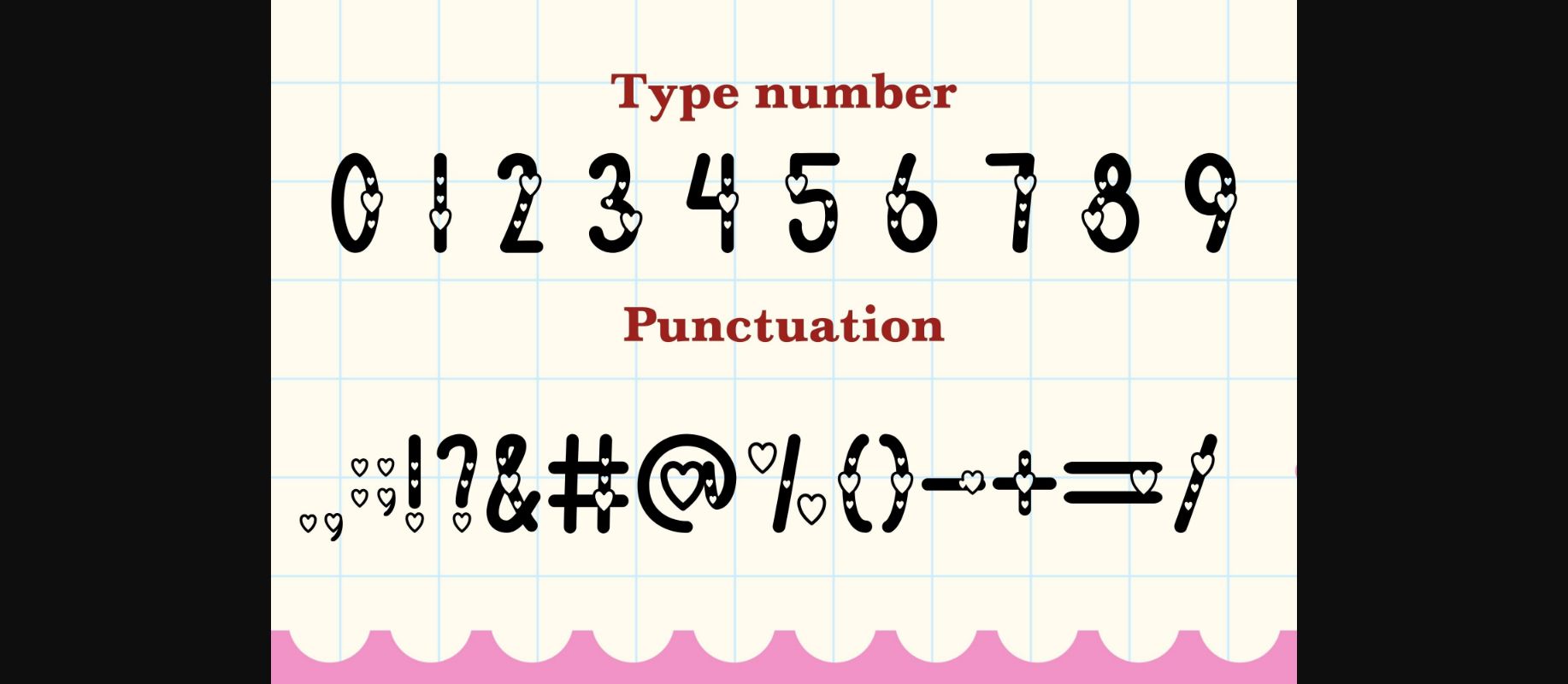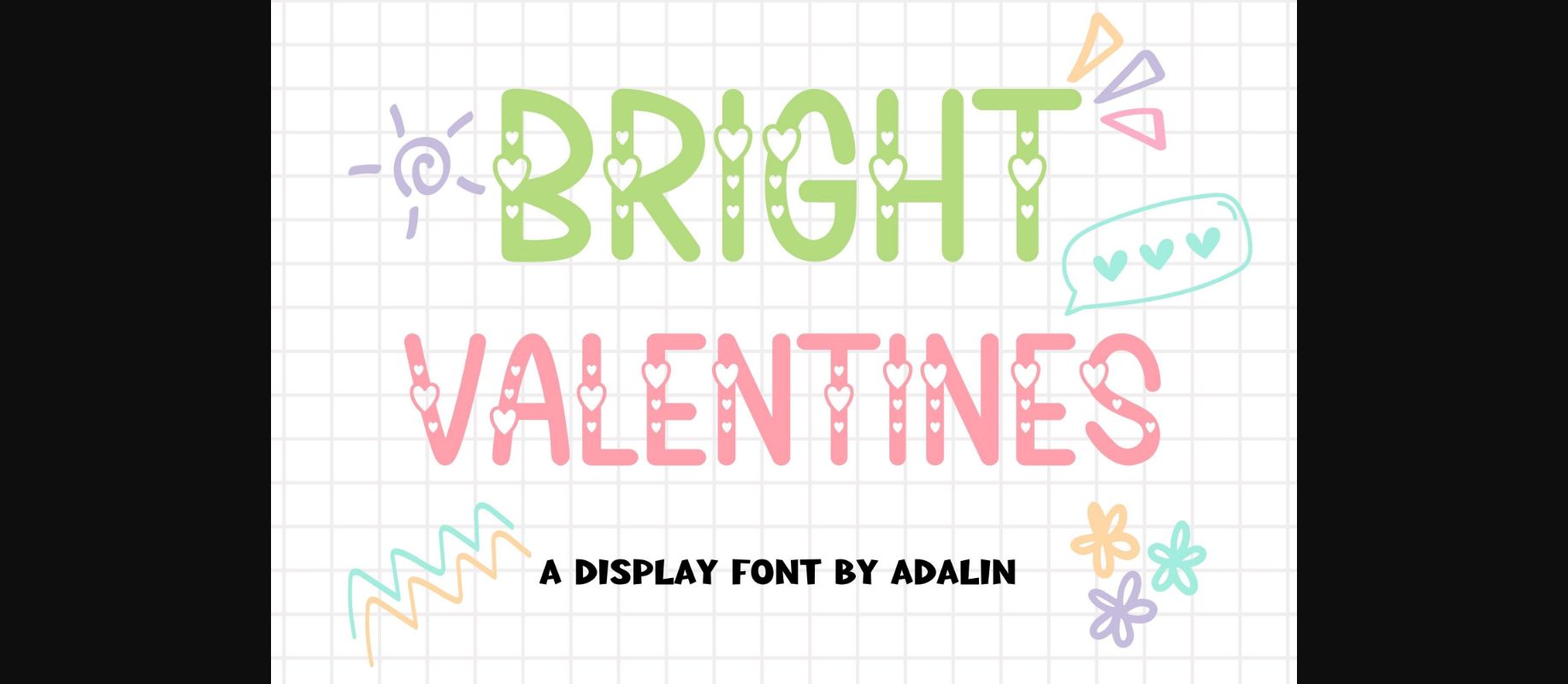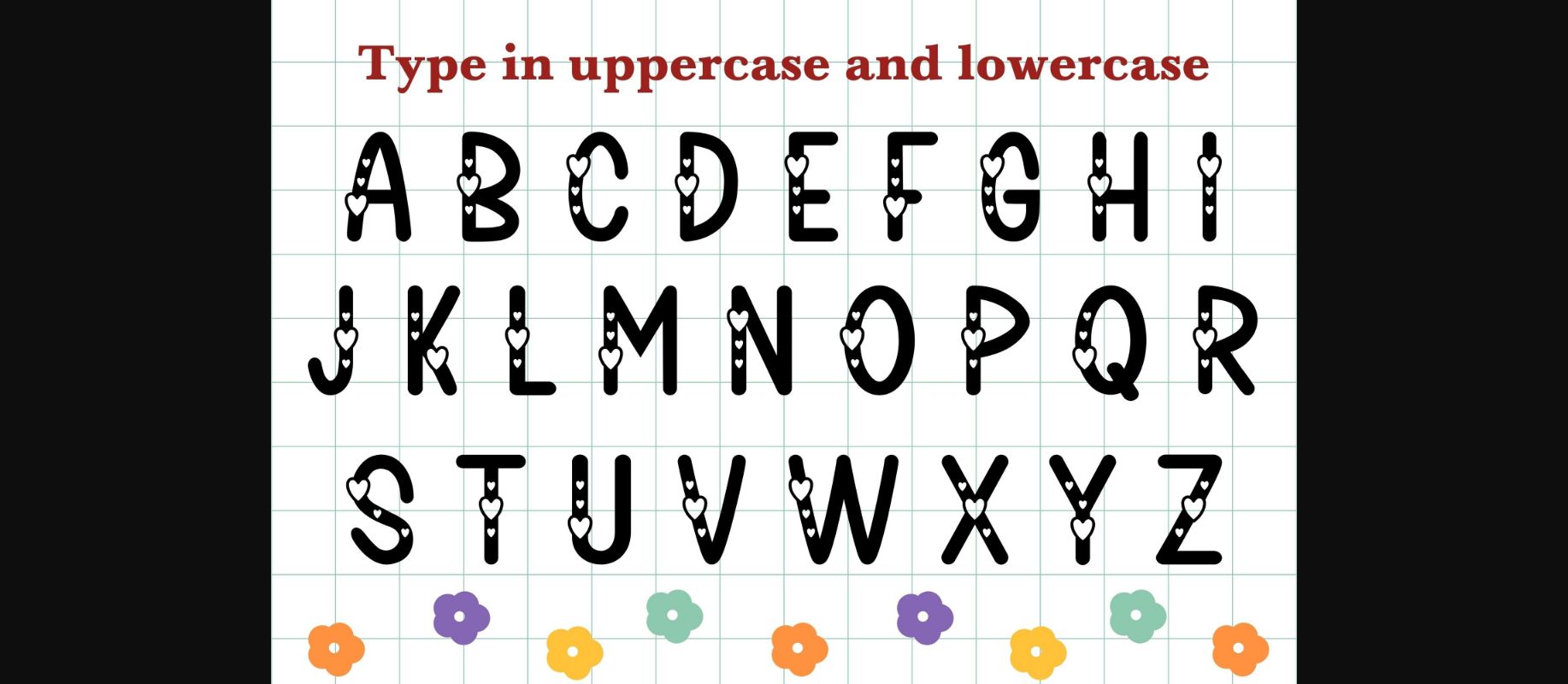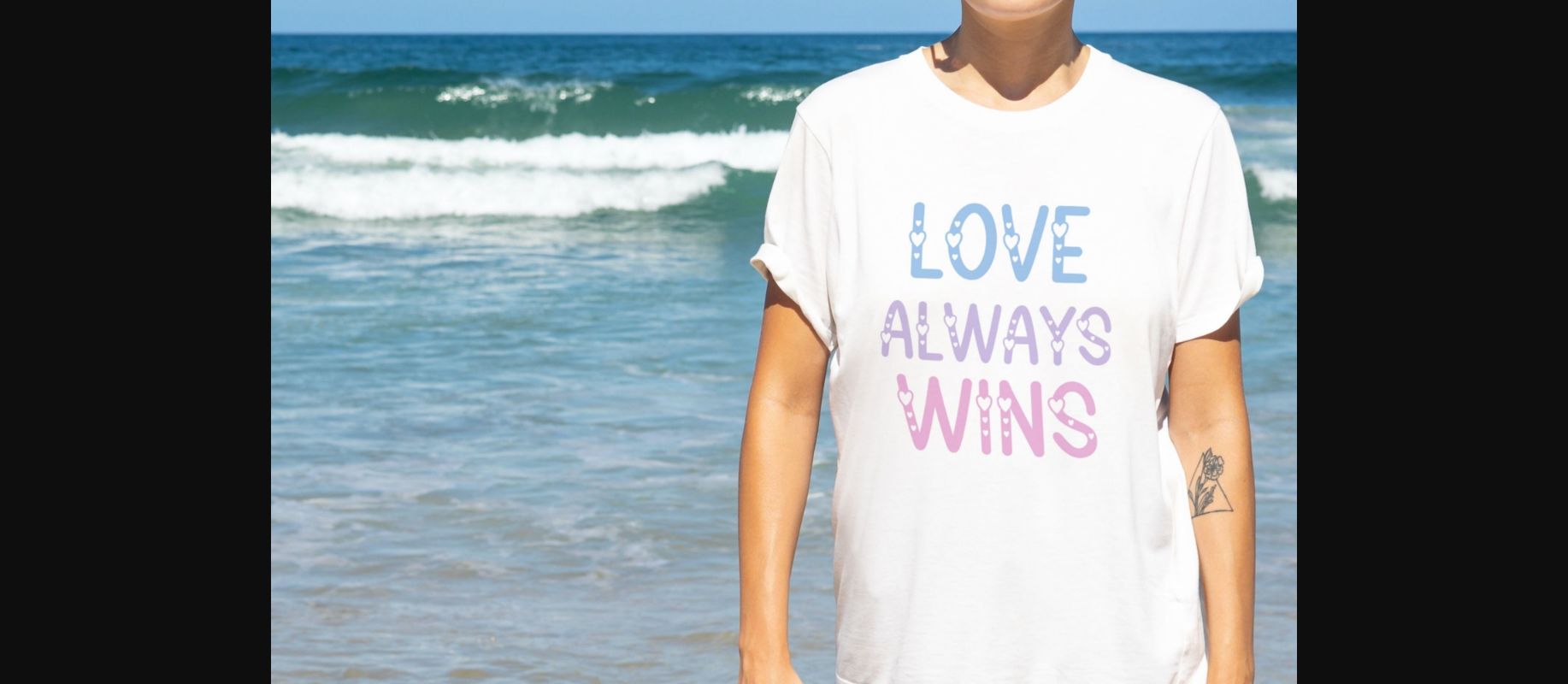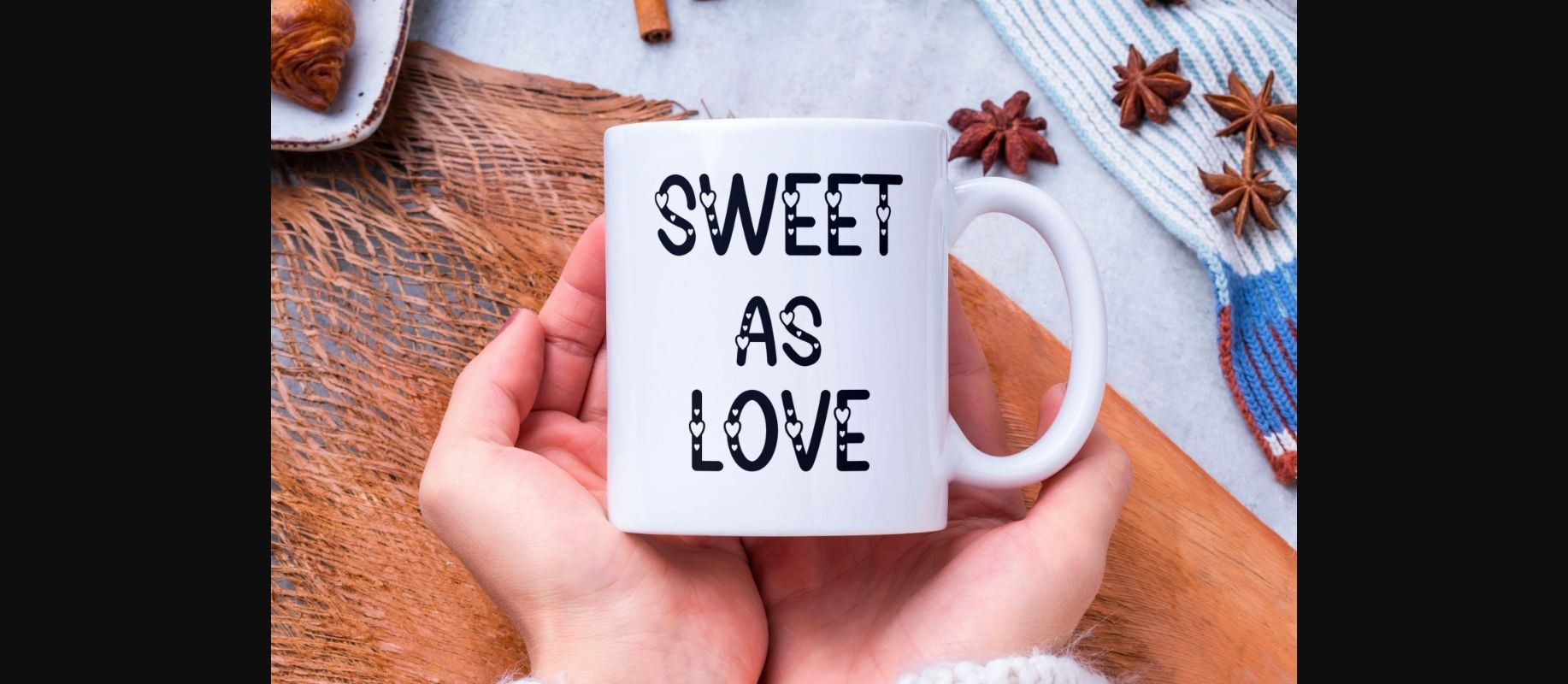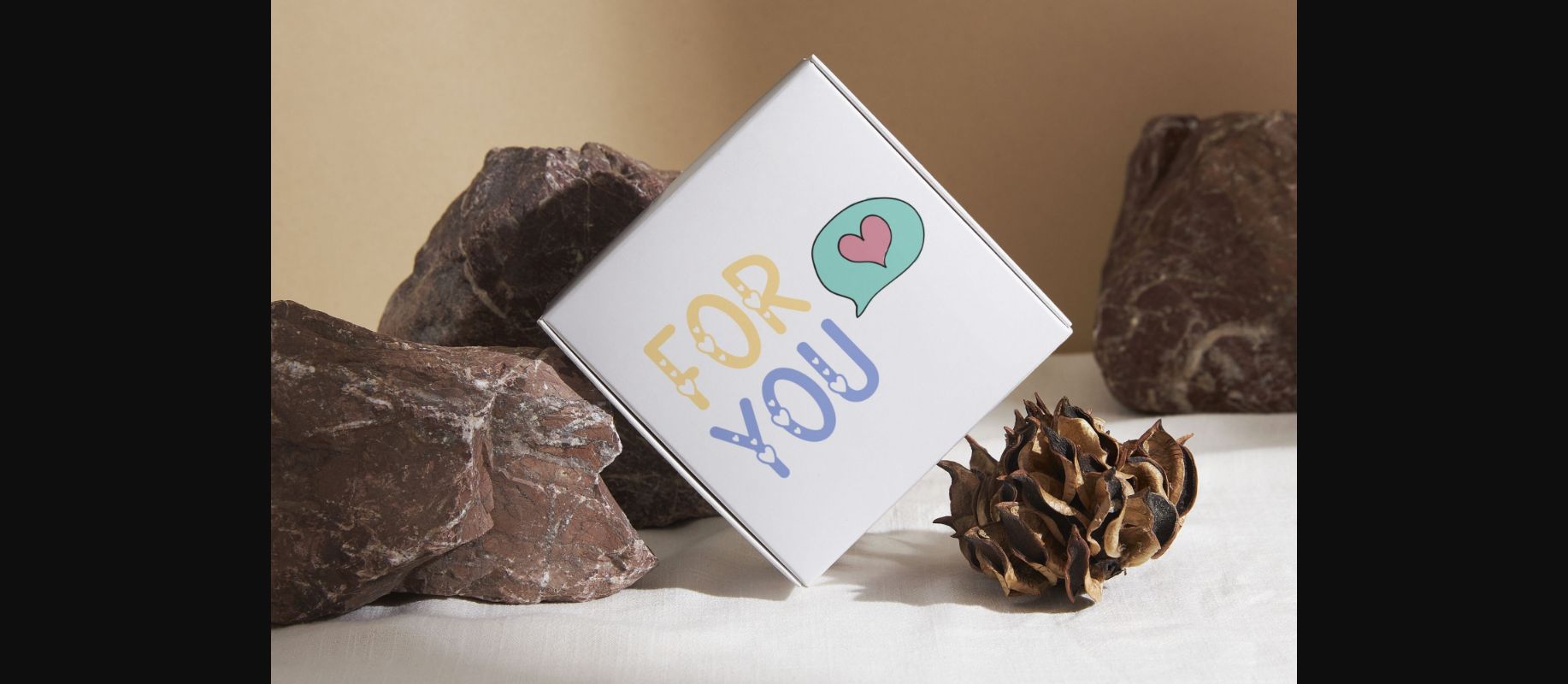
Bright Valentines Font
About Bright Valentines Font
Bright Valentines is a cute decorative Font ideal for crafting, and perfect for designs that need a playful, cheery accent. Bright Valentines is suitable for book covers, posters, packaging, merchandise, logotypes, and many more!